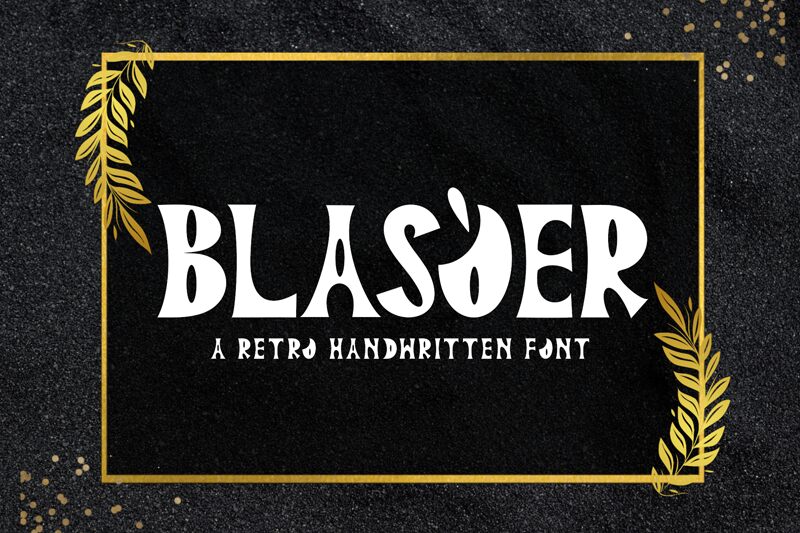
BLASQER
Blasqer, a bold creation by Yoga Letter, is a display font that boasts an extra-condensed width and an unmistakable groovy style. Its robust weight commands attention, making it an ideal choice for impactful headlines or any project requiring a dash of retro flair. The distinctive curves and sharp angles of Blasqer infuse text with personality, ensuring that messages are not just read but felt. This font’s aesthetic appeal lies in its ability to merge the essence of vintage grooviness with modern design sensibilities—a versatile tool for designers aiming to add a touch of uniqueness to branding, advertising, and multimedia designs.
Whether it's setting the tone for a nostalgic event or revitalizing logos with its dynamic character, Blasqer stands out as a font that can truly elevate creative endeavors.